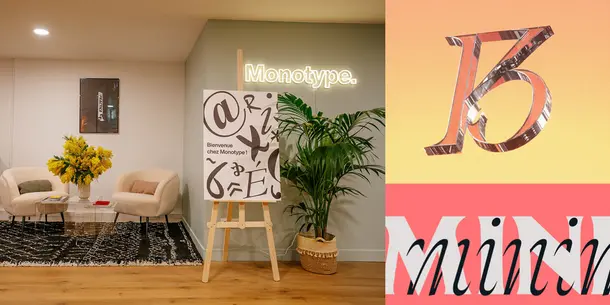
Monotype Announces the Opening of French HQ in Paris and Partnership with Renowned French Foundry Blaze Type
PARIS, France, April 17th, 2024 — Monotype Imaging Inc., a global leader in type design and technology, announced the opening of its new office in the historic district of Le Sentier, Paris, as part of its commitment to the French market. Monotype also announced its partnership with Blaze Type, a celebrated French foundry whose clients of agencies and global brands include Ogilvy, &Walsh, Riot Games, H&M, Graphéine, Borussia Dortmund, and DesignStudio.
The partnership between Monotype and Blaze Type will offer Monotype’s customers access to Blaze Type’s library of fonts for the first time, including their extensive catalog of variable typefaces, helping designers and creatives craft compelling visual narratives. Some notable typefaces from the foundry include Apoc, an elegant, sharp, and expressive font family; Slussen, a neo-grotesk font that covers a wide range of widths and weights; Digital Sans, a flexible and classic geometric font family; and Nuances, a modern serif font family that is both expressive and elegant. Blaze Type’s collection is now on Monotype Fonts and MyFonts for creative professionals worldwide.
“Our partnership with Monotype, a company rich in history, promises exciting opportunities for advancing the future of font design. This partnership not only broadens the reach of our typefaces, but also aligns with our mission to empower designers with tools that inspire creativity and push the boundaries of what’s possible in typographic design. Now that Monotype has an office in Paris, we are thrilled to collaborate closely with them on future font related projects,” said Matthieu Salvaggio, Founder and Type Designer at Blaze Type.
Monotype’s Creative Type Director Damien Collot shared, “Our partnership with Blaze Type is fantastic news, highlighting our commitment to nurturing innovation in typography. Incorporating Blaze Type’s fonts into our collection provides our designers with exceptional creative possibilities and adaptability. I am also thrilled Monotype has officially opened an office in Paris. Our vision was to create a space where our clients and the wider creative community can connect, hear from industry innovators, and share ideas.”
The new Monotype office in Paris includes a dedicated room for workshops, talks, and events, and will serve as a hub for fostering creativity and collaboration among typographers, designers, and creative professionals. The office’s location in Le Sentier District, known as “La Silicon Sentier” for the district’s position as a hub of innovation and culture, seemed a perfect match for Monotype, a type technology and design leader.
Ninan Chacko, CEO of Monotype, stated, “Establishing our presence in Paris, a city known for its rich artistic heritage and creative scene, is a significant milestone for Monotype. It not only demonstrates our deep commitment to French typography, but also furthers our goal of fostering innovation and excellence in the global design community. I am also delighted to announce our partnership with Blaze Type, a leader in French typographic design and variable type. Together, we are excited to share their typefaces, which blend tradition with innovation, showcasing our dedication to celebrating typefaces that resonate across cultures and time.”
With this expansion and partnership, Monotype demonstrates its dedication to the art and science of typography, ensuring that designers have access to the best tools and resources to bring their visions to life.
Monotype creates brands that matter with type, technology, and expertise.
The company partners with leading foundries to deliver the broadest inventory of high-quality typefaces in the world. The Monotype Fonts platform offers over 250,000 fonts including timeless classics, such as Helvetica®, Univers®, and Frutiger® typeface families, as well as new innovative fonts like Posterama™ and Masqualero™.
Blaze Type is an independent type foundry designing retail and custom fonts for amazing design projects. Blaze Type’s international team of experts work in close collaboration to create stunning and innovative variable and static typefaces. Over the years, they have developed a unique approach to better address the needs of font users by putting them at the center of everything Blaze does.